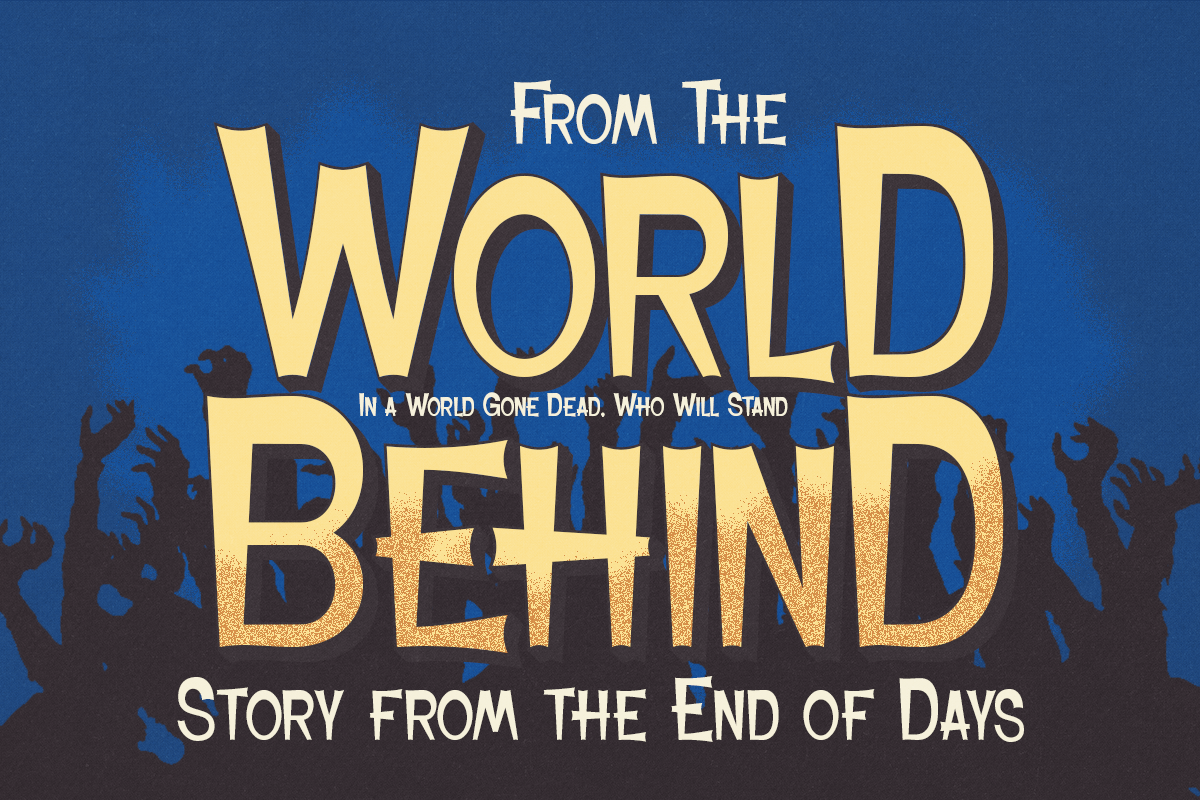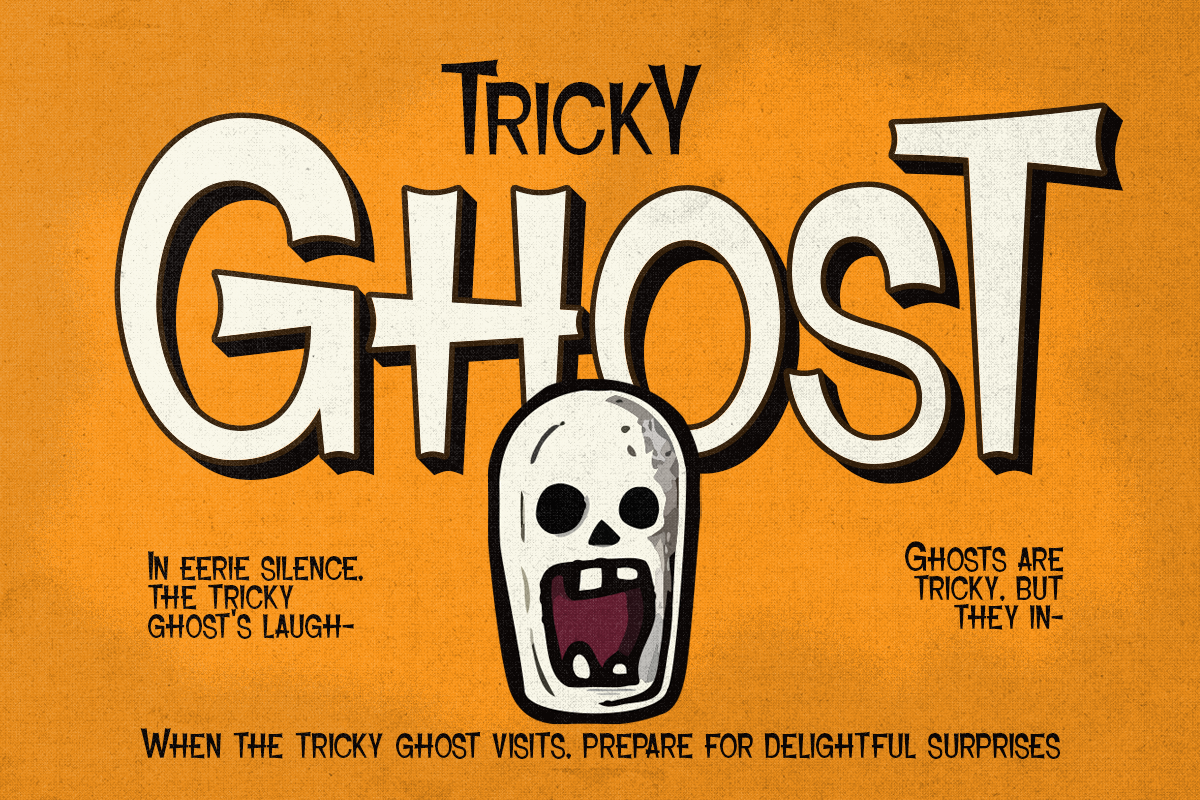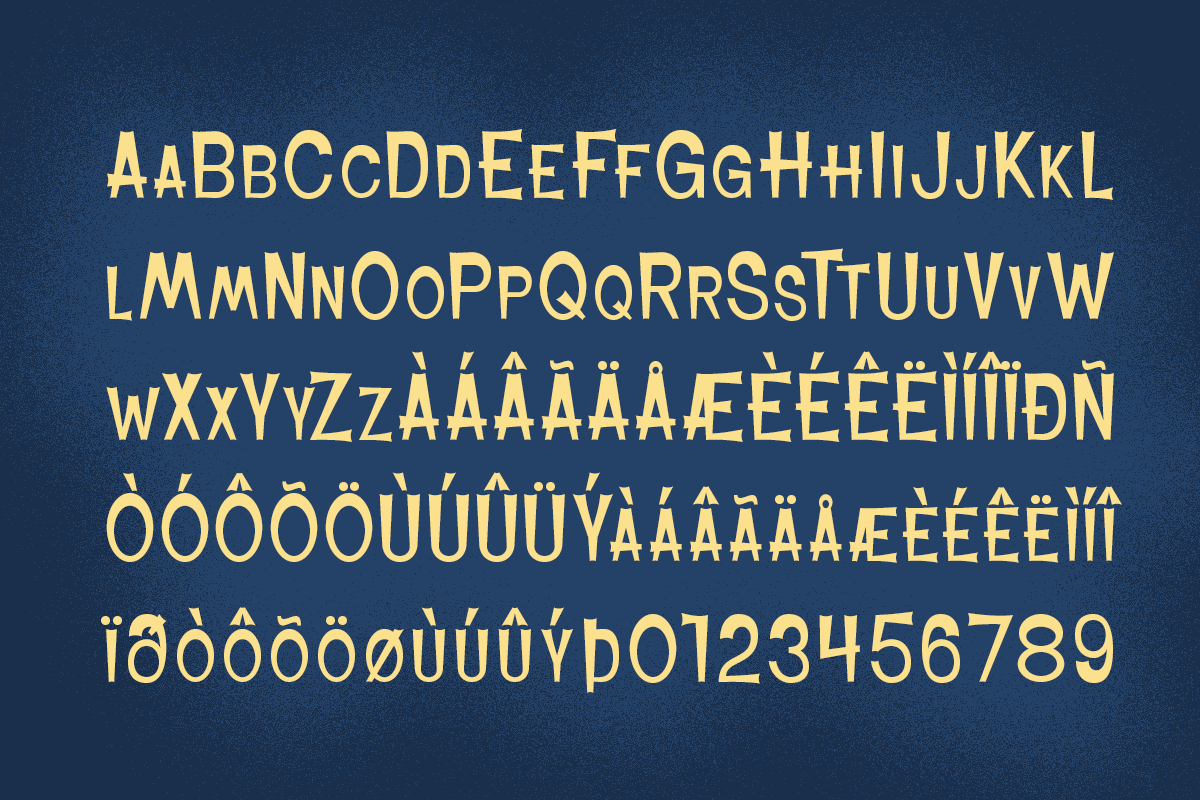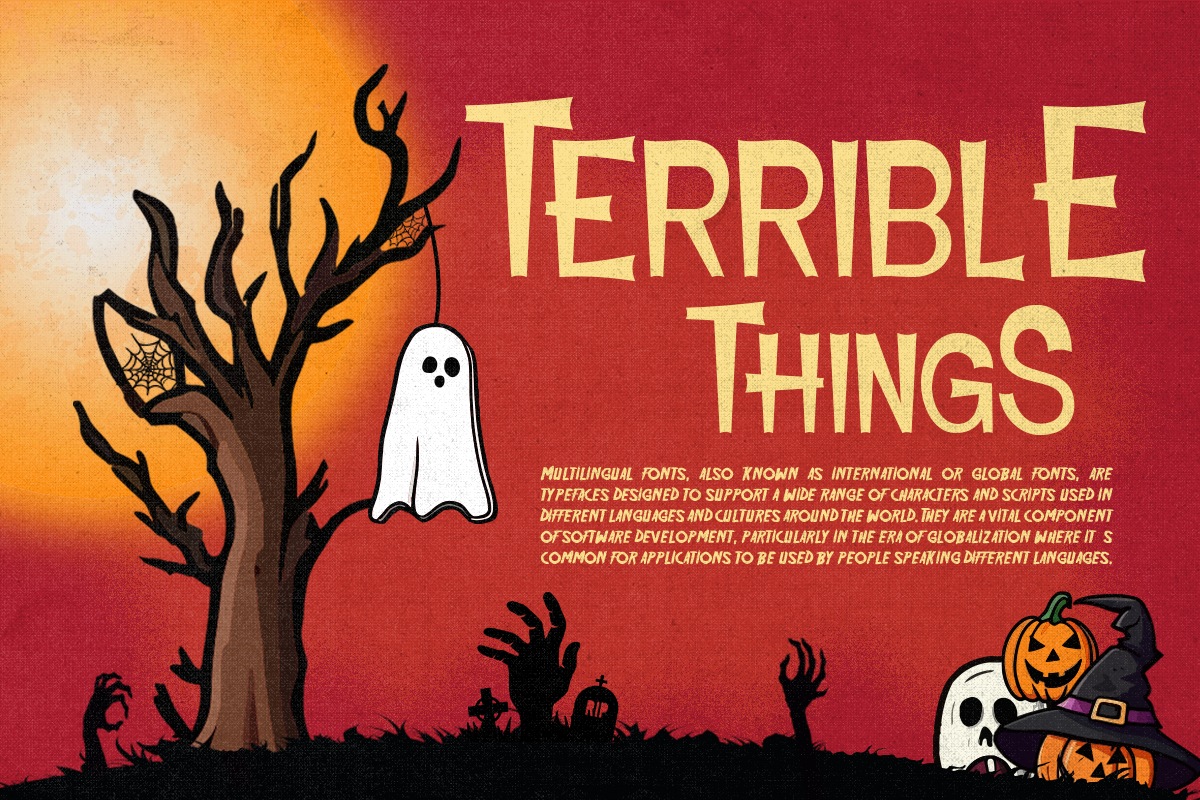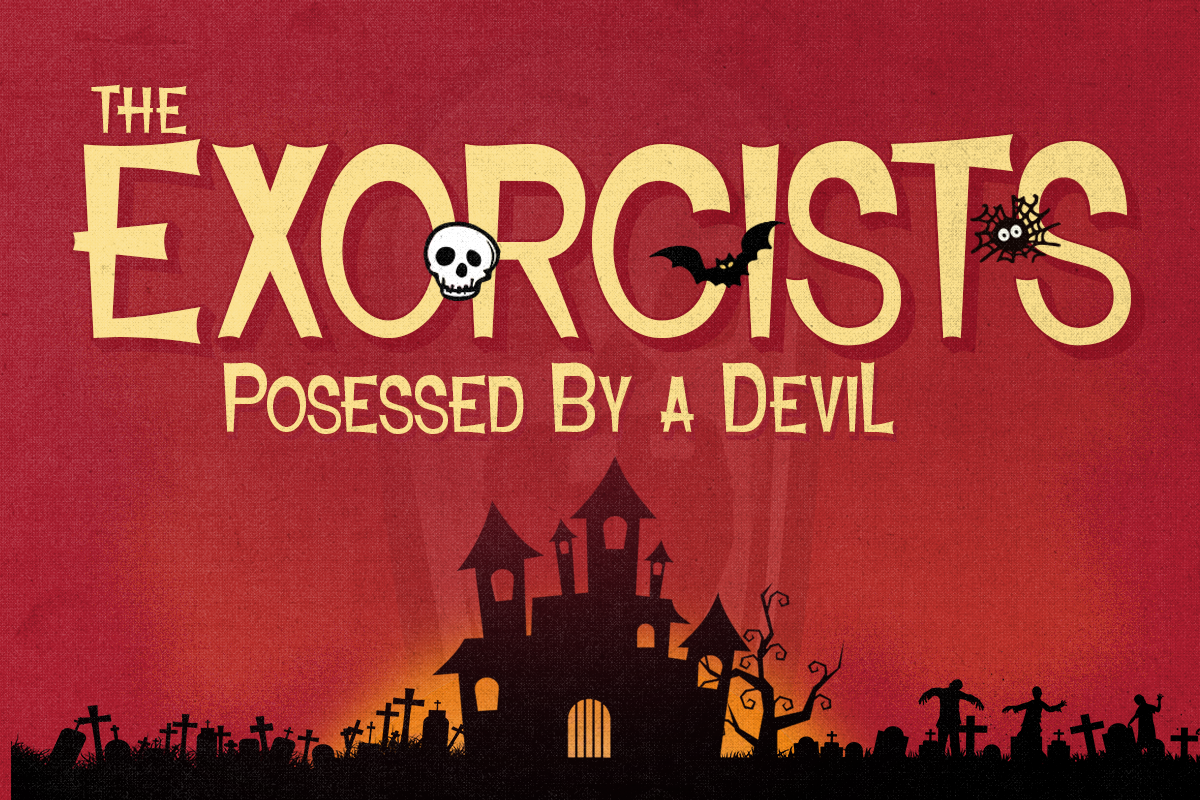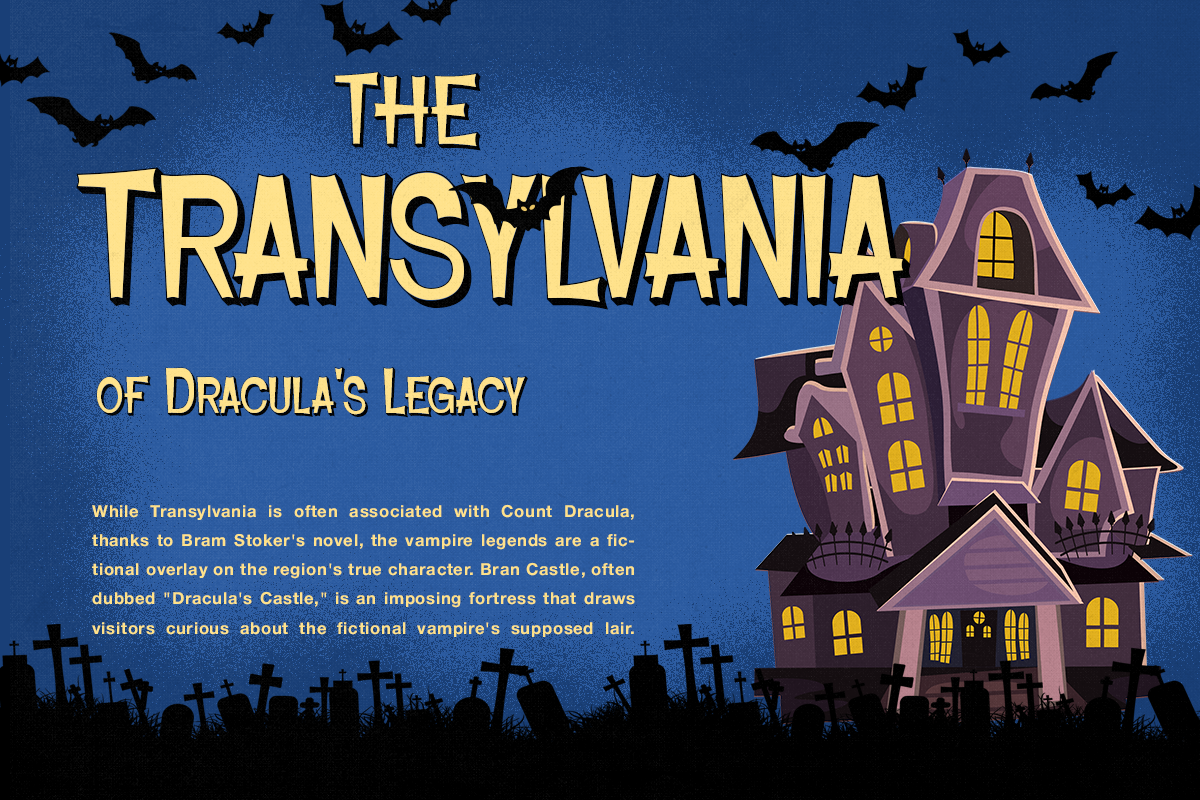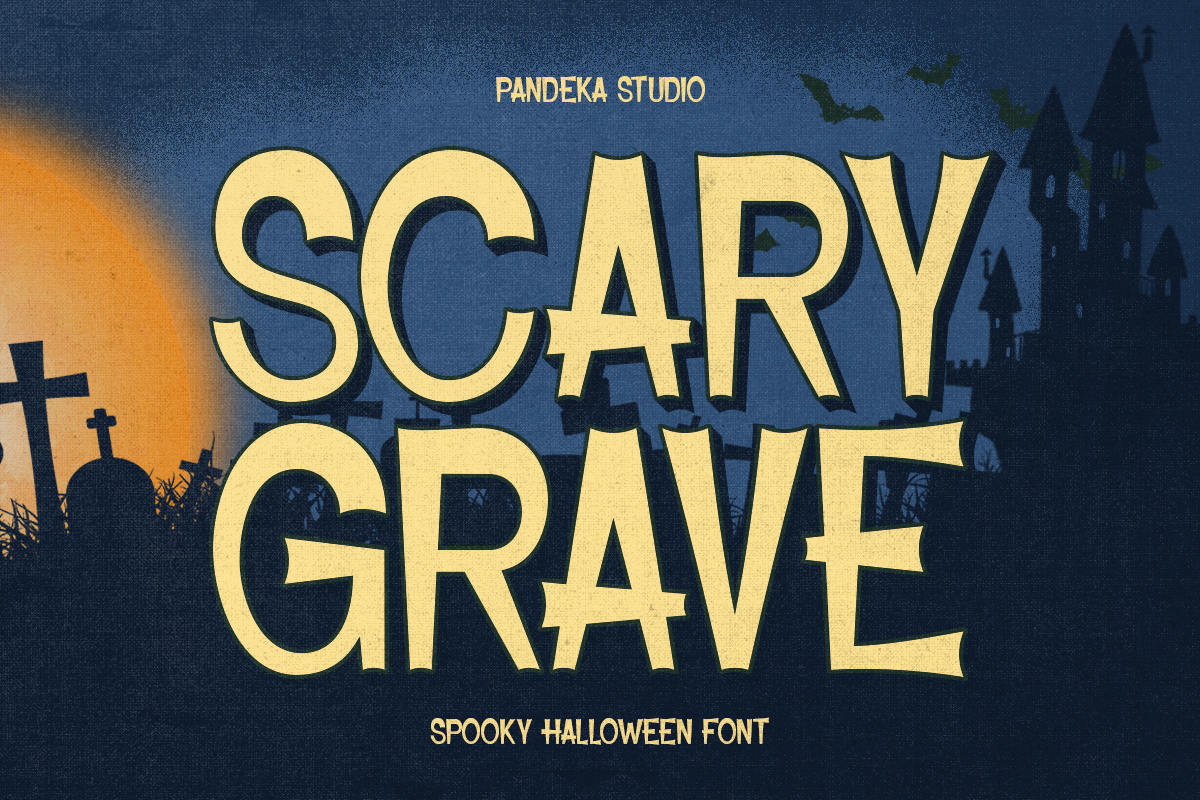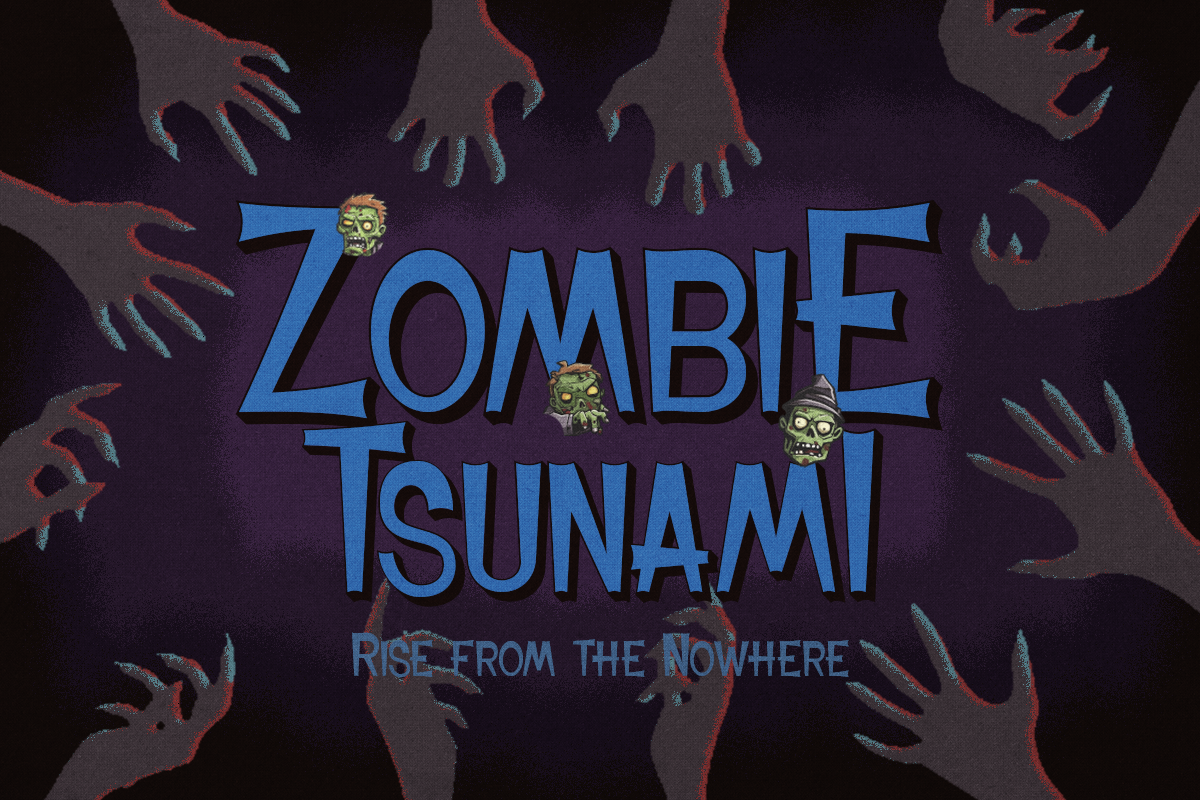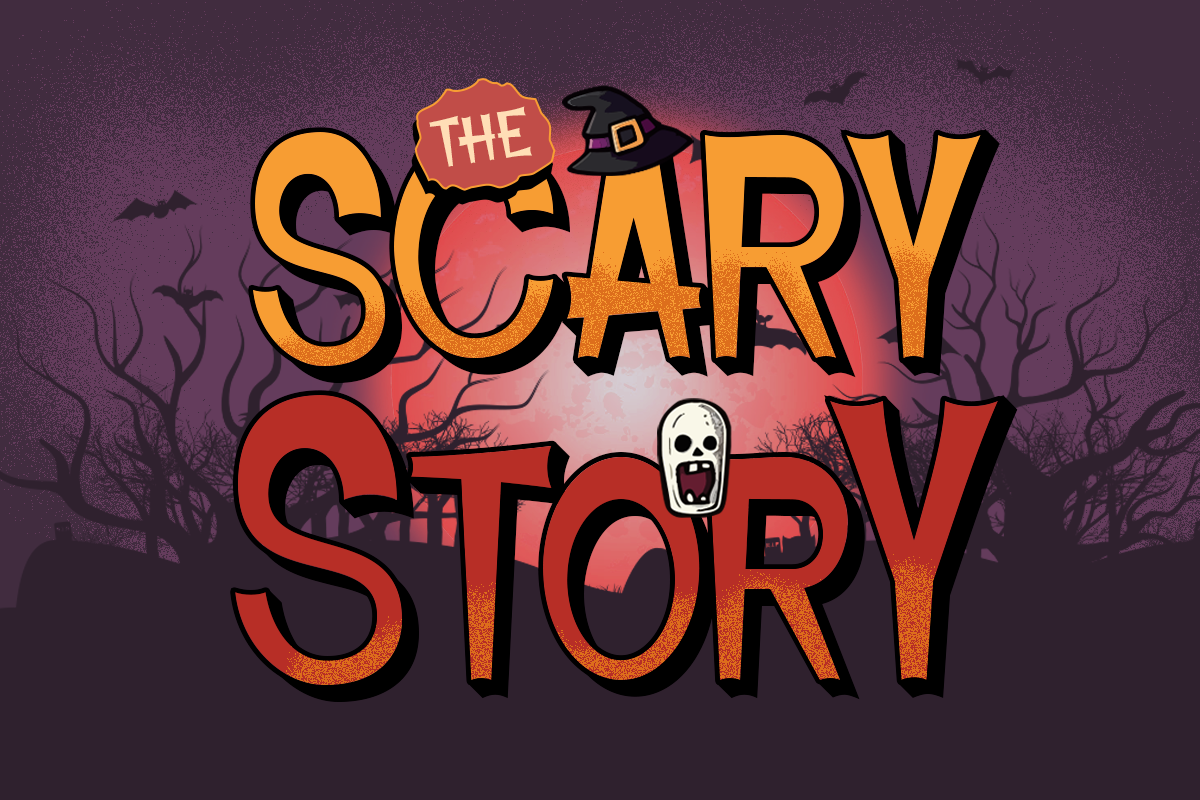
Scary Grave - Spooky Halloween Font
Scary Grave is a spooky Halloween font designed with bold, playful letterforms and a creepy horror character. Its expressive shapes create a fun yet eerie atmosphere, making it perfect for Halloween themes, ghost stories, haunted events, horror games, and spooky seasonal designs.
Scary Grave comes in 3 styles: Regular, Extrude, and Outline giving designers flexibility to create eye-catching layered typography and dramatic visual effects. Ideal for Halloween posters, haunted house graphics, party invitations, horror titles, game artwork, event promotions, social media content, merchandise, and themed branding, Scary Grave brings a memorable spooky personality to every design.
3 Style: Regular, Extrude, and Outline
Full Character Set: Uppercase, lowercase, numbers, symbols, and punctuation